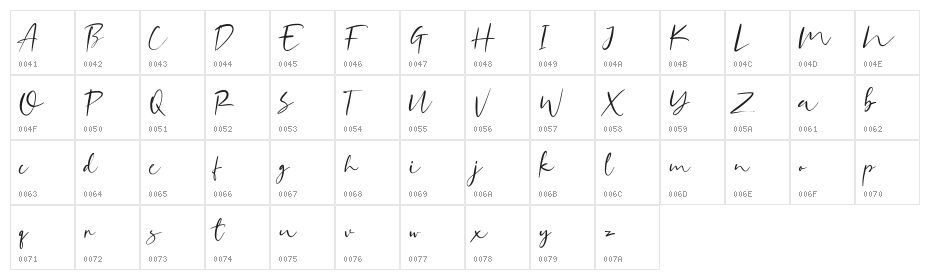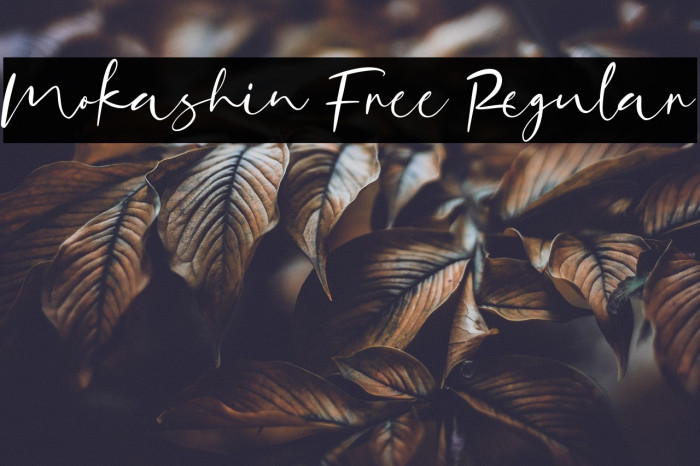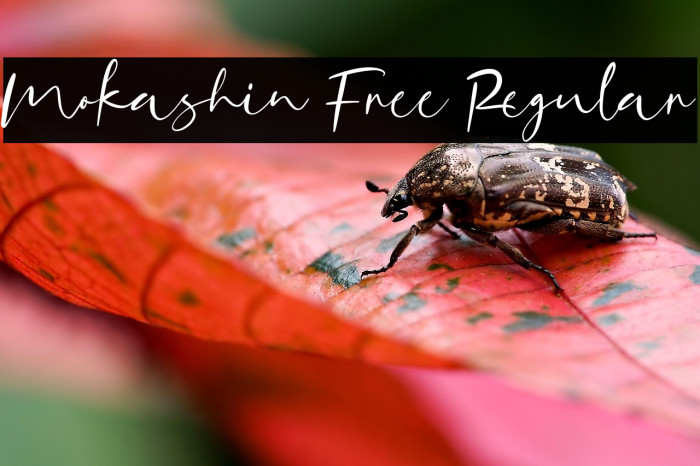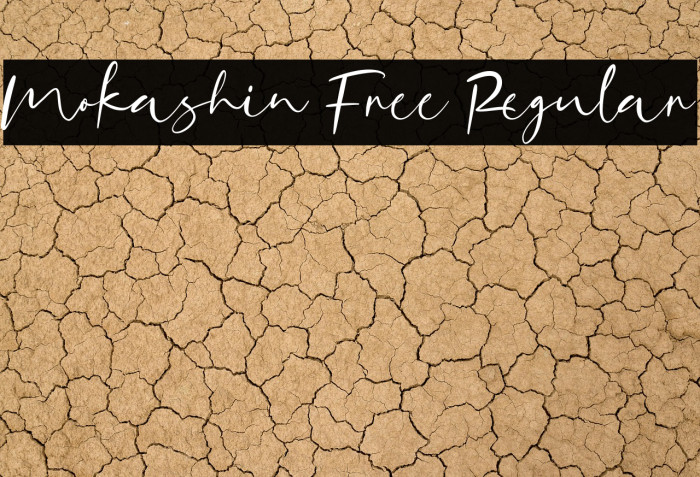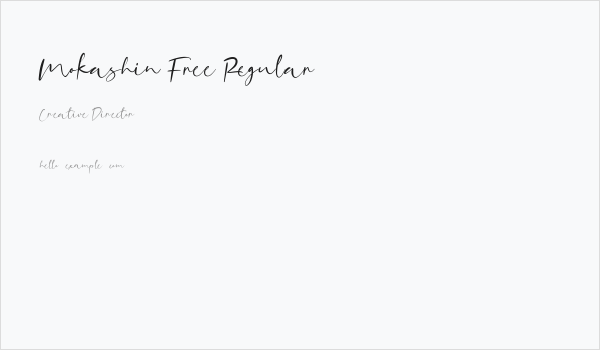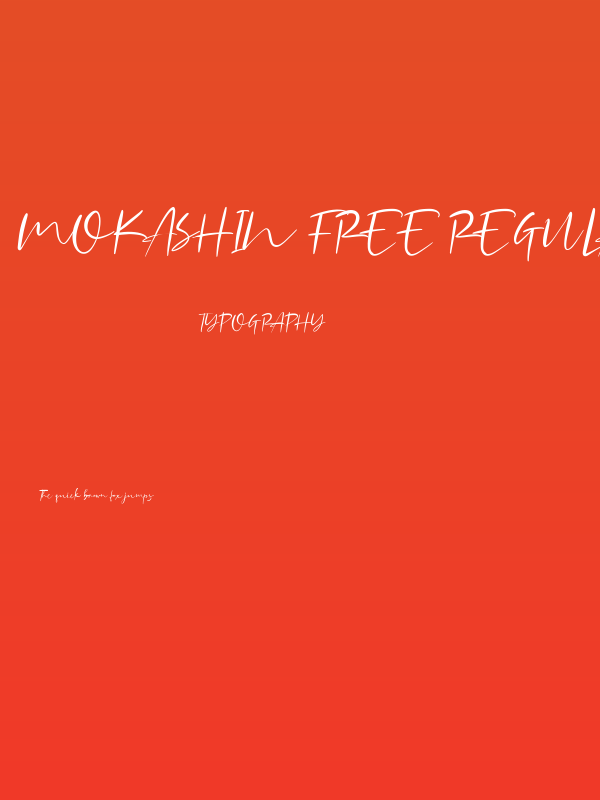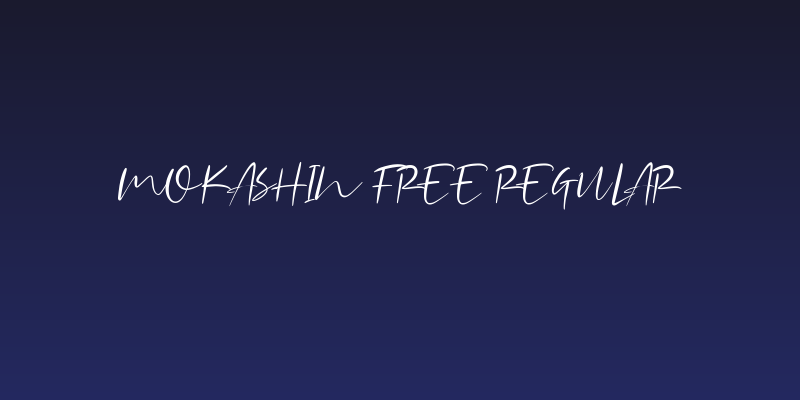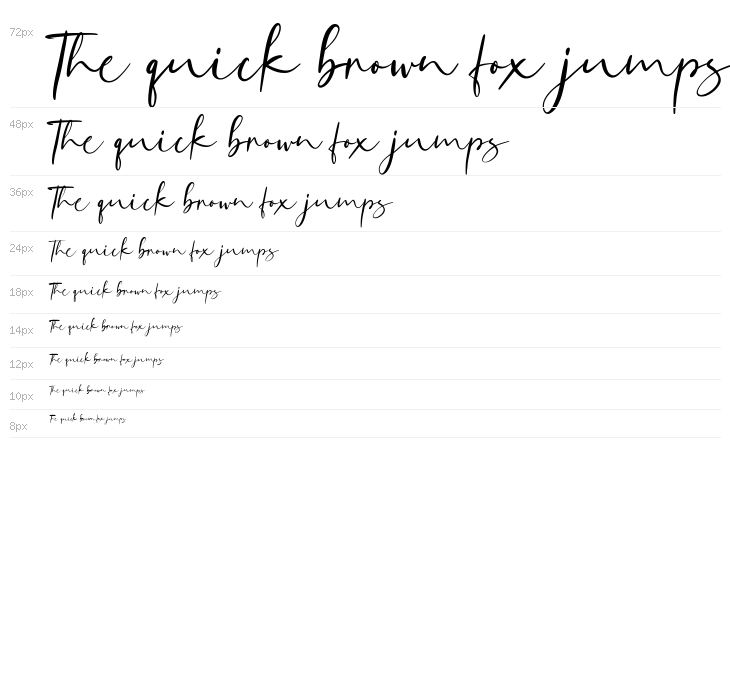
Mokashin Free Regular Font
Mokashin Free Regular Description
This font features a flowing, handwritten style with a modern and elegant touch. The characters are connected in a cursive manner, giving it a fluid and dynamic appearance. The strokes vary in thickness, providing a medium contrast that adds to its graceful aesthetic. The uppercase letters are slightly more structured, while the lowercase letters exhibit a more relaxed and freeform style. This font exudes a sense of sophistication and creativity, making it ideal for projects that require a personal and artistic flair.
| Proposed Projects | Ideal for wedding invitations, personal branding, greeting cards, and artistic projects. |